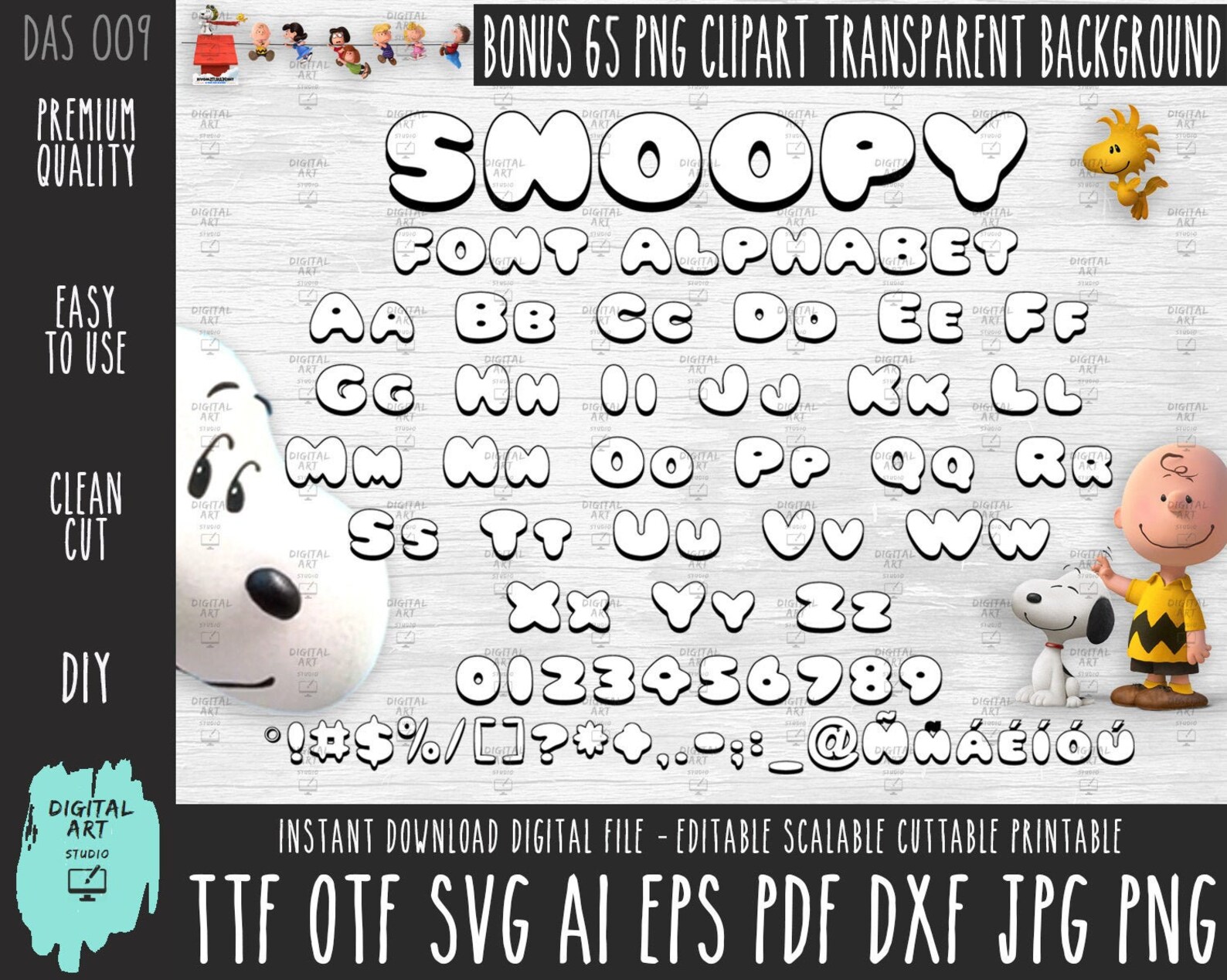
Browse by alphabetical listing, by style, by author or by popularity. Peanuts is a logo sans serif font with a unique style and a large of styles to choose from. It's a great typeface that is used to design Peanuts' comic lettering content.
Snoopy font is a playful and whimsical typeface inspired by the beloved cartoon character. With its hand-drawn style and charming irregular strokes, it brings a fun, nostalgic feel to any design. Peanuts font generator Use our free Peanuts font generator below to create your own custom design logo or image.